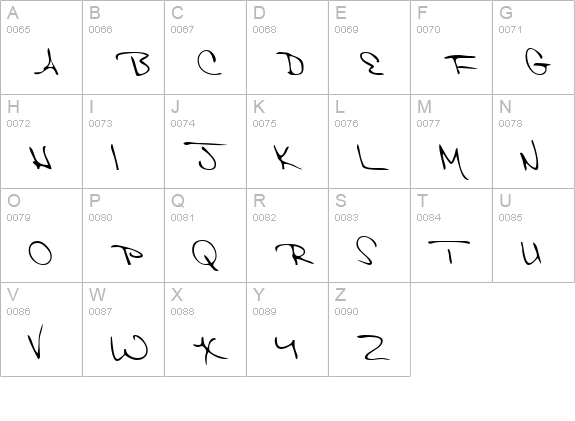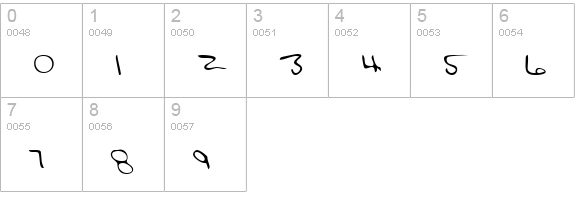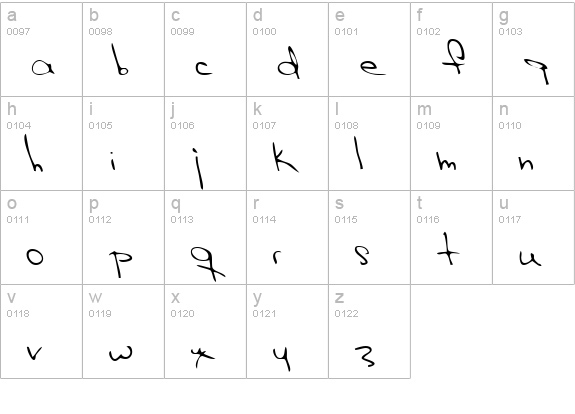
JessiesHand Regular is the standard, neutral variant in the JessiesHand typeface family \xE2\x80\x94 well suited to general body text, paragraphs, and standard typographic work.
JessiesHand Regular font is a charming and playful typeface that brings a warm and friendly touch to any design project. With its hand-drawn style and unique character shapes, this font is perfect for adding a personal and inviting feel to your creations. Whether you're working on invitations, posters, or branding materials, JessiesHand Regular font will surely make your designs stand out. The best part is that JessiesHand Regular font is available for free download at FontsMarket.com. You can easily access this delightful font and use it in your projects without any cost. Don't miss out on the opportunity to enhance your designs with this lovely and versatile typeface. Download JessiesHand Regular font today and let your creativity shine!